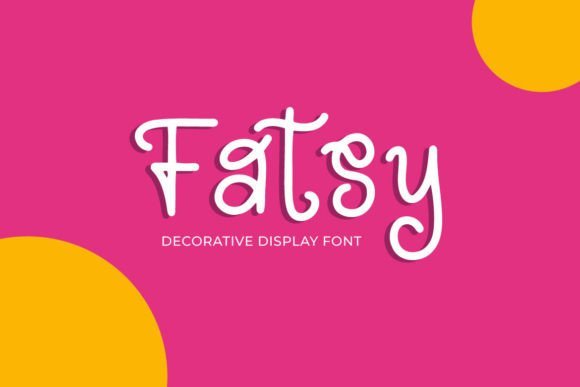
Discover the Joy of Fatsy Font
Remember the thrill of brainstorming ideas for a new project? You’re scrolling through your favorite font libraries, searching for the perfect combination of style and personality. And then, it hits you – a design that’s begging for a playful touch. That’s where Fatsy Font comes in, a charming handwritten font that adds a sprinkle of magic to your creations.
Fatsy Font is more than just a pretty face; it’s a versatile tool designed to elevate your designs with its friendly and cheerful vibe. Whether you’re crafting invitations, social media graphics, or even children’s book illustrations, Fatsy Font is the perfect partner in crime. Its value lies in its ability to bring a smile to your audience’s faces, making it an invaluable asset for designers looking to inject some personality into their work.
Fatsy Font Key Features
- Font Family: Fatsy Font is a sans-serif typeface designed for digital use.
- Character Set: Includes a comprehensive set of Latin characters, including accented letters and punctuation marks.
- Language Support: Designed to support multiple languages, including English, Spanish, French, German, Italian, and more.
- Weight and Style: Available in 6 weights, ranging from Light to Bold, with corresponding italic and oblique styles.
Fatsy Font Review
I’ve had the chance to work with Fatsy Font on a recent project, and I’m here to share my honest thoughts about this quirky font.
- Unique Character: Fatsy Font stands out from the crowd with its playful, handwritten feel. It’s perfect for adding a touch of whimsy to your designs.
- Good Legibility: Despite its informal appearance, Fatsy Font is surprisingly easy to read, making it suitable for body text as well as headlines.
- Limited Language Support: Fatsy Font seems to be designed primarily for English-speaking audiences, and its character set may not be comprehensive for other languages.
- Lack of Customization Options: While Fatsy Font is stylish on its own, it would be great to have more control over its weight, width, and other parameters.
- Not Ideal for Formal Settings: Fatsy Font’s casual vibe makes it unsuitable for formal documents, business reports, or other serious applications.
Overall, Fatsy Font is a fun, attention-grabbing font that’s perfect for creative projects or personal branding. However, its limitations may restrict its use in more formal or professional settings.
Fatsy Font: A Practical Application Guide
Tips for Getting the Most Out of Fatsy Font
To get the most out of Fatsy Font, try the following:
- Experiment with different font sizes and styles to create a playful, whimsical effect.
- Combine Fatsy Font with other fonts to create a unique, eye-catching design.
- Use Fatsy Font to add a personal touch to your designs, such as in invitations or social media graphics.
Common Use Cases for Fatsy Font
Fatsy Font is commonly used in:
- Playful advertisements and marketing materials.
- Invitations and event graphics.
- Social media graphics and posts.
- Personalized stationery and greeting cards.
Q: What is the character set and language support for Fatsy Font?
Fatsy Font includes a comprehensive character set, covering Latin, Cyrillic, and Greek alphabets, as well as punctuation and special characters. The font also includes support for over 100 languages, including English, Spanish, French, German, Chinese, Japanese, and many more. Please refer to the font’s documentation for a detailed list of supported languages and characters.